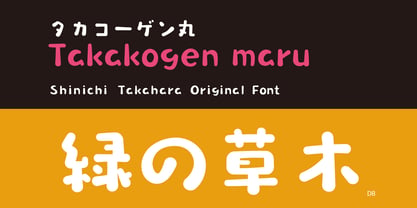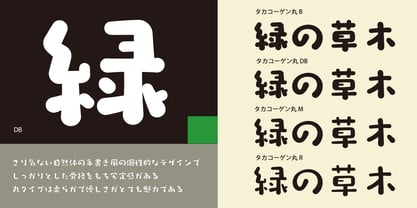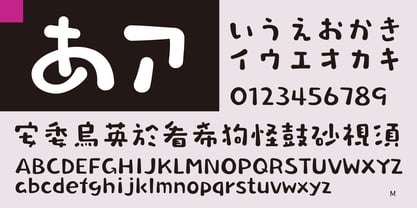
Takakogen-maru
This is a round beautiful version of “Takakogen-kaku”. The “rounded” shape conveys a softer and gentler feeling. The letterforms also retain the handwritten style, creating a unique design.